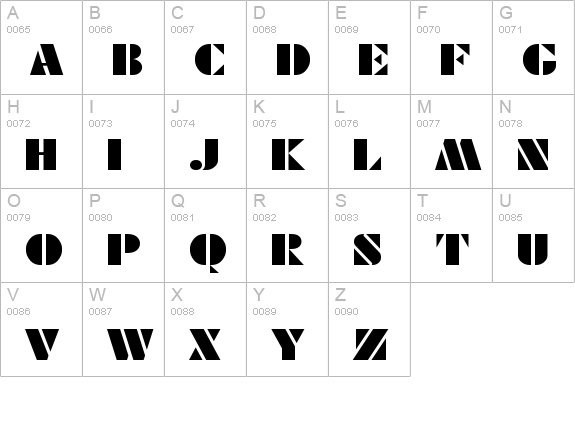
Rodchenko Wd Font Details
The Rodchenko Wd font is a modern and stylish typeface that exudes sophistication and elegance. With its clean lines and unique design, this font is perfect for a wide range of design projects, from logos to posters to websites. The sleek and contemporary look of the Rodchenko Wd font will make your text stand out and grab attention. What makes the Rodchenko Wd font even better is that it is completely free to download! Yes, you read that right - this amazing font is available at no cost at FontsMarket.com. So, if you're looking to add a touch of class to your designs without breaking the bank, look no further than the Rodchenko Wd font. Download it today and elevate your projects to the next level!